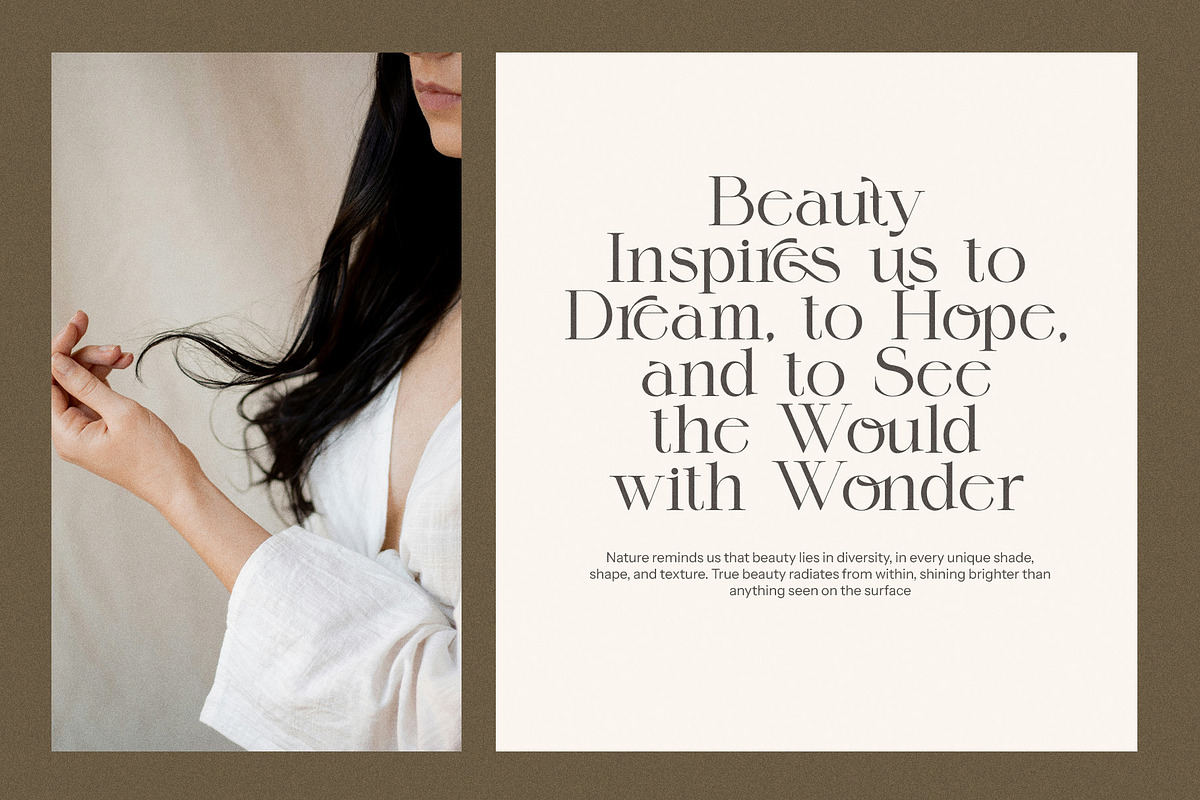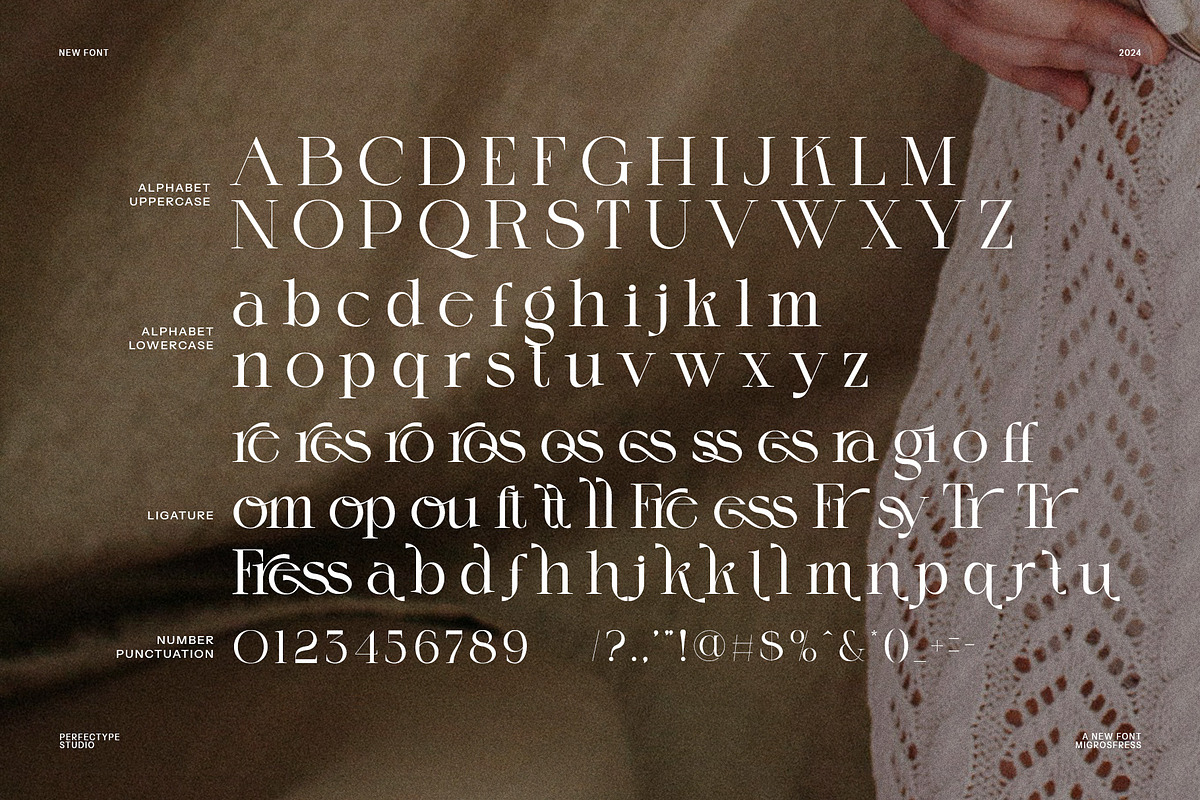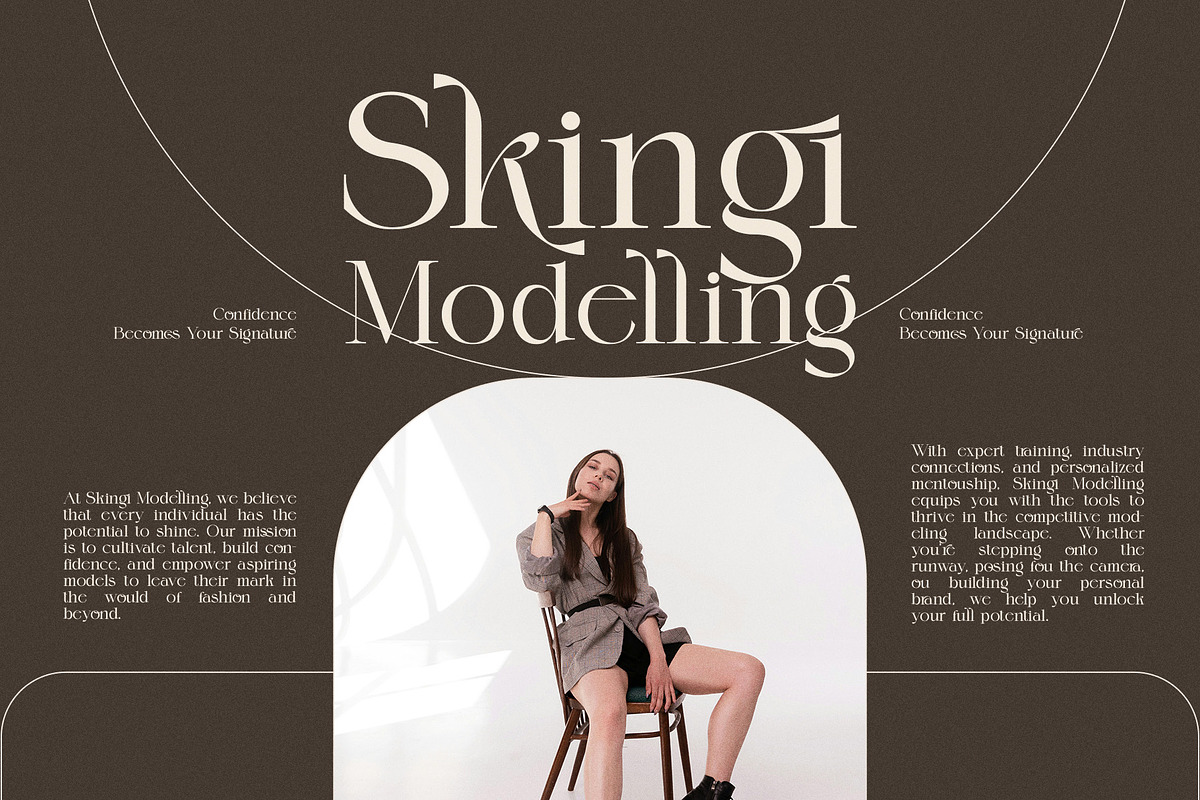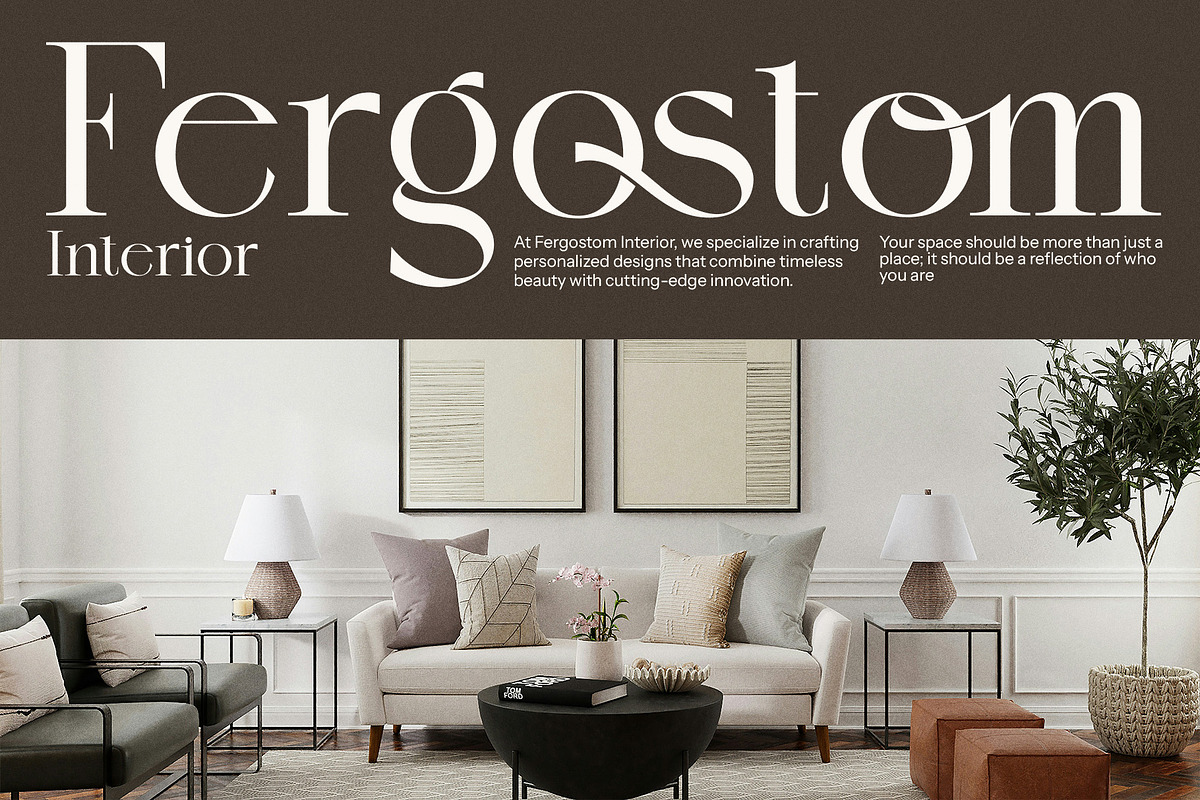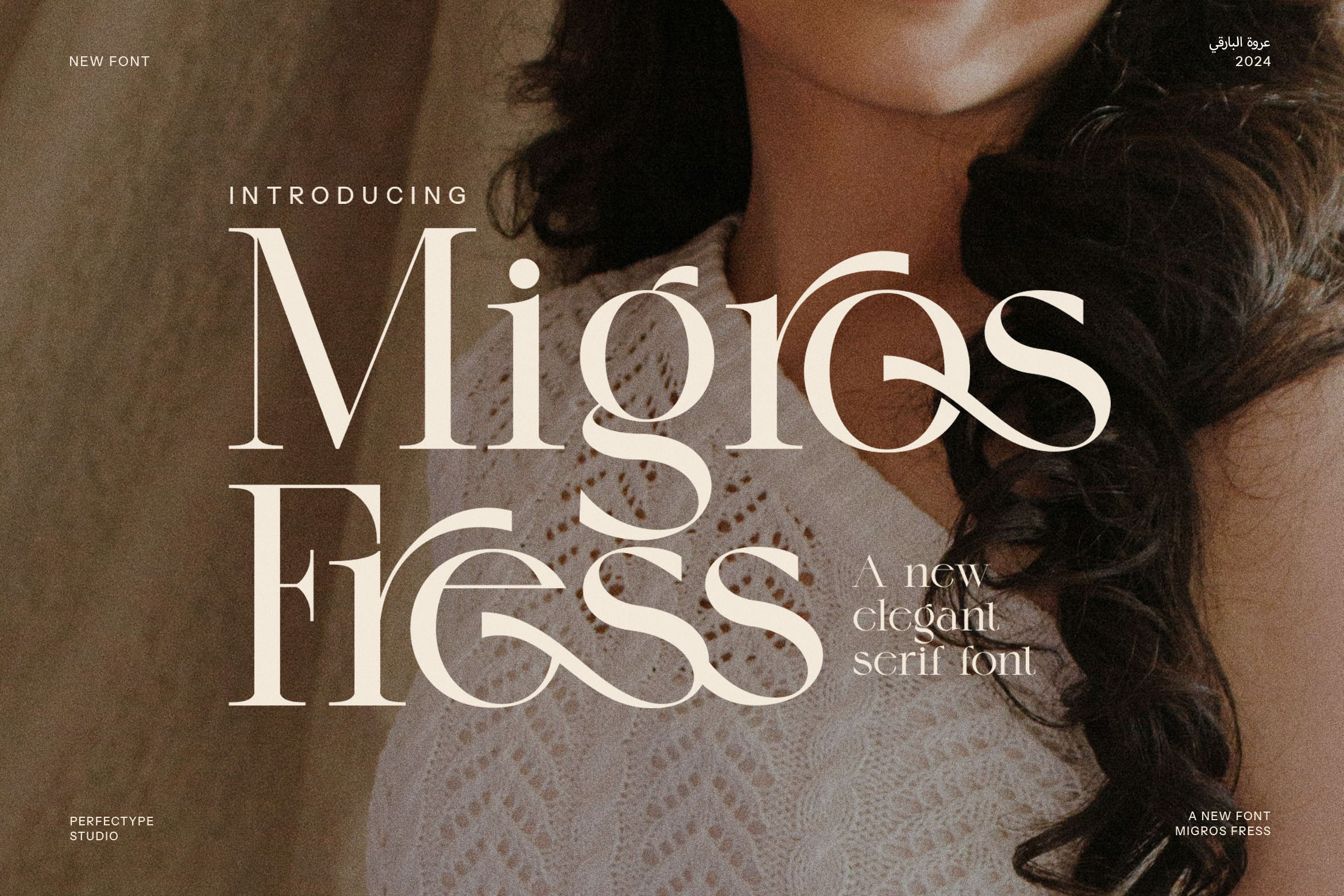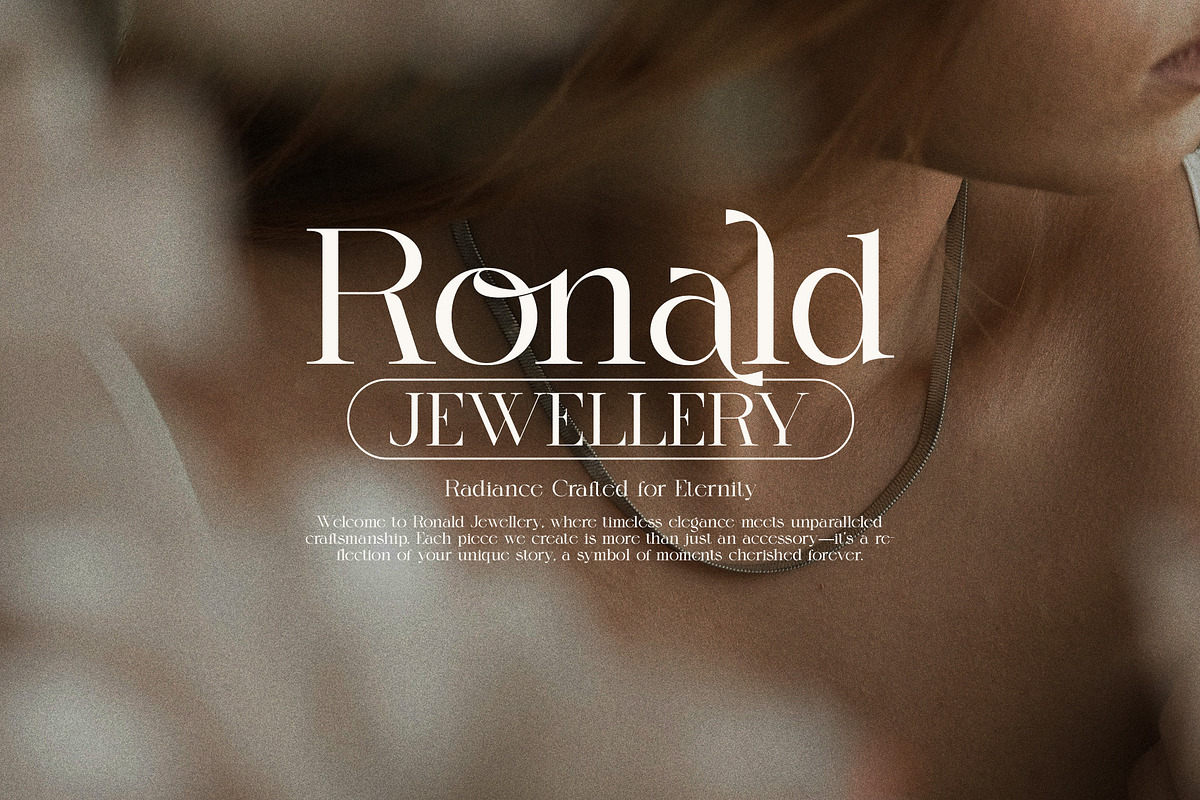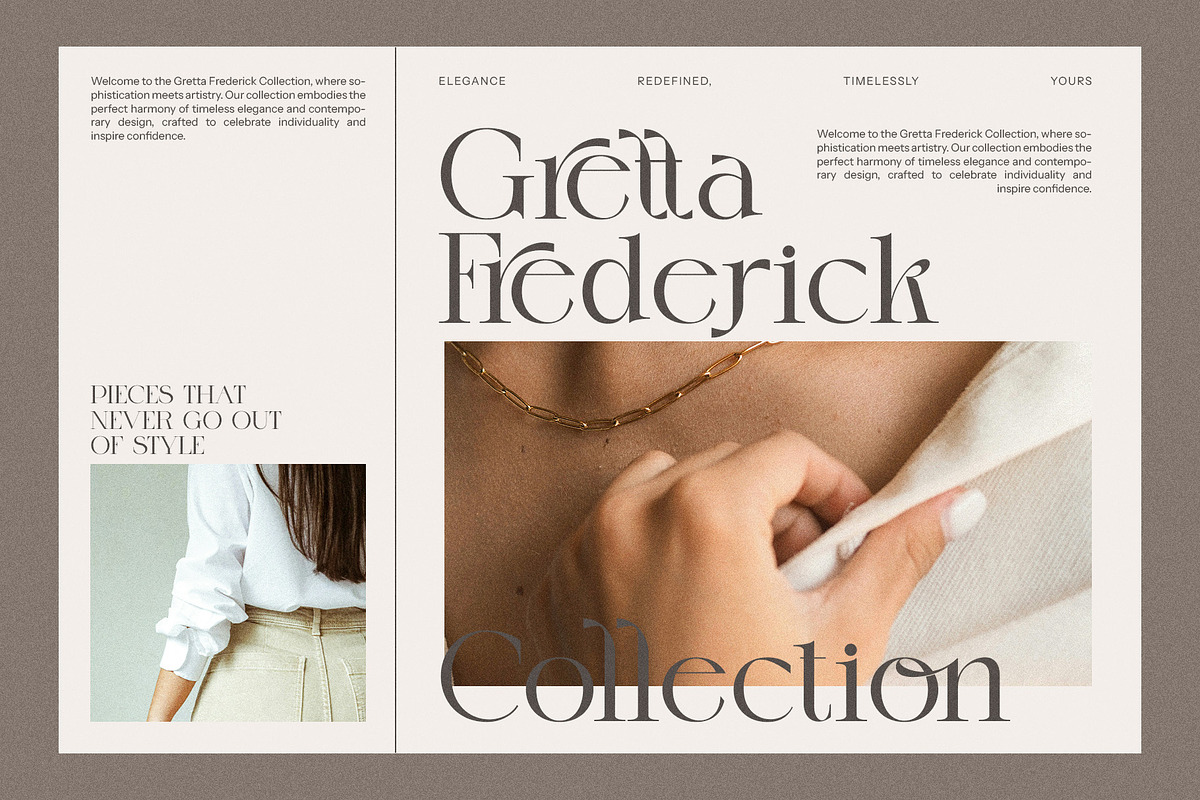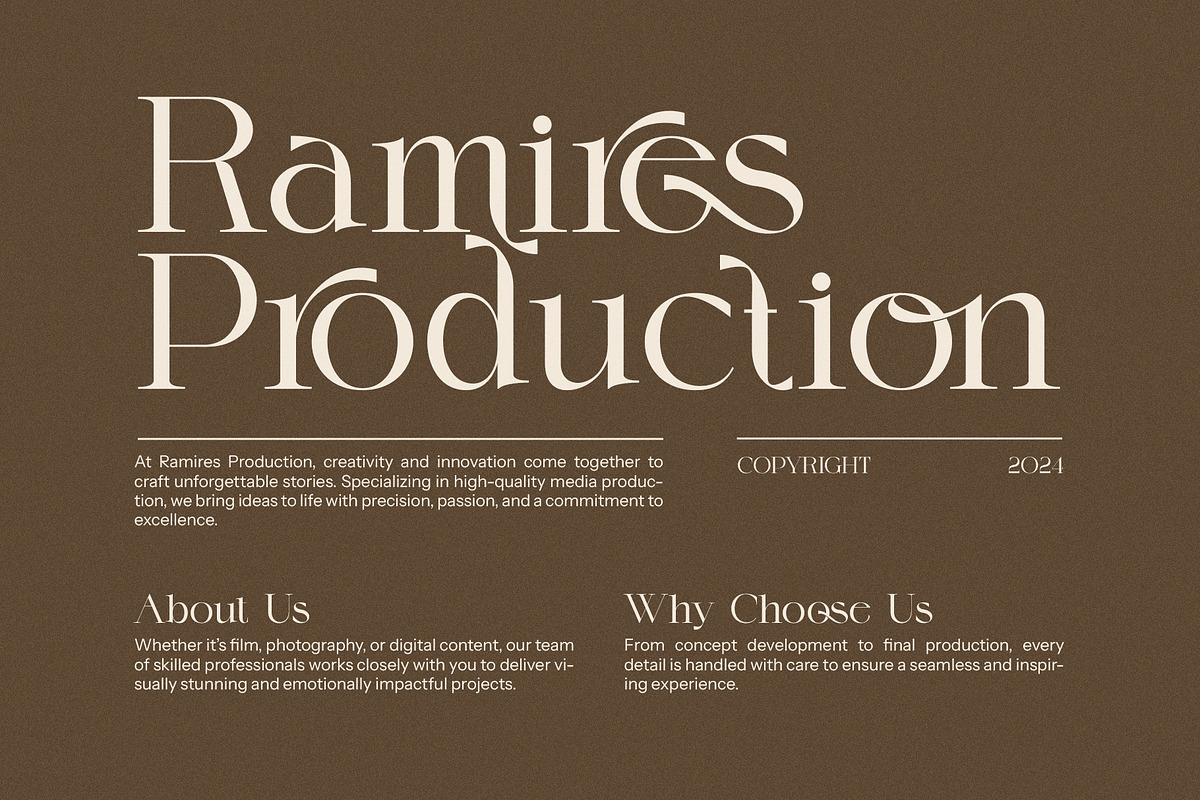
Migros Fress Serif Font
Migros Fress Modern Serif Font is a striking and elegant typeface that effortlessly blends contemporary style with classic serif sophistication. Designed with intricate ligatures and unique alternate characters, this font elevates traditional letterforms by combining multiple characters into beautifully crafted, distinctive shapes. The result is a modern and creative font that adds an artistic and refined touch to any design project.
Perfect for a wide range of applications, Migros Fress shines in branding, logos, and high-end marketing materials. Its sleek, polished design makes it ideal for luxury brands, boutique labels, and upscale products. Whether you’re designing a sophisticated website, a magazine layout, or eye-catching advertisements, this font ensures a memorable and professional look that captures attention and communicates elegance.
Migros Fress is incredibly versatile, seamlessly transitioning across both digital and print media. It’s an excellent choice for food branding, product packaging, and promotional materials, where a unique and high-quality appearance is key. The font’s distinct ligatures and alternate features infuse your designs with personality, while its strong serif structure ensures readability and timeless appeal.
From creative logos to elegant editorial layouts, Migros Fress Modern Serif Font offers the perfect balance of modernity and refinement. This font is designed to make a lasting impression, giving your projects a polished, upscale, and memorable identity. Whether you’re working on luxury branding or cutting-edge design, Migros Fress is the ideal choice for those looking to add a touch of sophistication and creativity to their work.